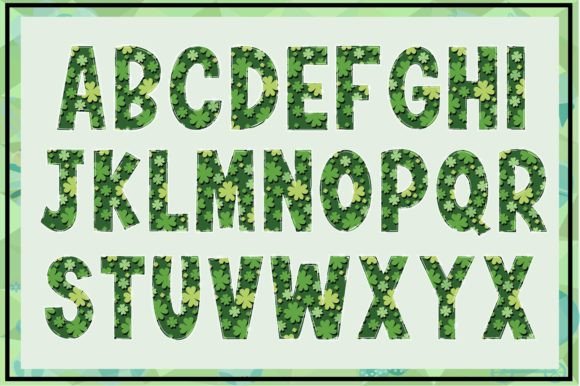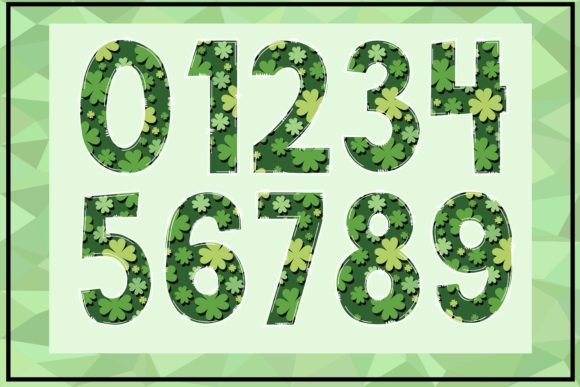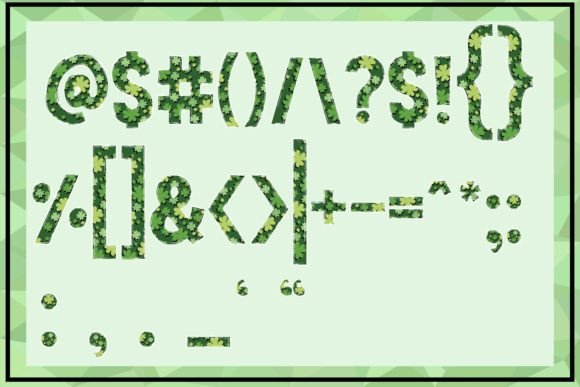
Clover Font: Add a Touch of Luck to Your Saint Patrick’s Day Designs
Are you looking for a fun and playful font to make your Saint Patrick’s Day designs stand out? Look no further than the Clover Font! This vibrant color font is perfect for adding a touch of luck to your creative projects. In this article, we’ll take a closer look at the Clover Font, its features, and how you can use it to make your designs shine.
What is Clover Font?
Clover Font is a unique and eye-catching color font designed specifically for Saint Patrick’s Day and other festive occasions. Its playful and fun design makes it perfect for crafts, DIY projects, and digital designs. The font comes in a range of colors, including shades of green, which is perfect for creating Saint Patrick’s Day-themed designs.
Features of Clover Font
The Clover Font has several features that make it a great addition to your design toolkit. Some of its key features include:
• Color Font: The Clover Font is a color font, which means it comes in a range of colors that can be used to add depth and interest to your designs.
• Playful Design: The font has a playful and fun design that’s perfect for creating festive and eye-catching designs.
• Versatile: The font can be used for a range of design projects, including crafts, DIY projects, and digital designs.
How to Use Clover Font
Using the Clover Font is easy! Here are a few ways you can incorporate it into your design projects:
• Crafts: Use the Clover Font to create festive crafts, such as party decorations, gift tags, and cards.
• DIY Projects: Add the Clover Font to your DIY projects, such as scrapbooking, journaling, and mixed media art.
• Digital Designs: Use the Clover Font in your digital designs, such as social media graphics, blog posts, and email newsletters.
Tips for Using Clover Font
Here are a few tips for using the Clover Font in your design projects:
• Experiment with Colors: The Clover Font comes in a range of colors, so don’t be afraid to experiment and find the perfect combination for your design.
• Mix and Match: Mix and match the Clover Font with other fonts and design elements to create a unique and eye-catching design.
• Keep it Simple: Don’t overcomplicate your design. Keep it simple and let the Clover Font be the star of the show.
The Clover Font is a fun and playful color font that’s perfect for adding a touch of luck to your Saint Patrick’s Day designs. With its easy-to-use design and versatile features, it’s a great addition to any design toolkit. Whether you’re a designer, crafter, or DIY enthusiast, the Clover Font is sure to make your designs stand out. So why not give it a try and see what amazing designs you can create?